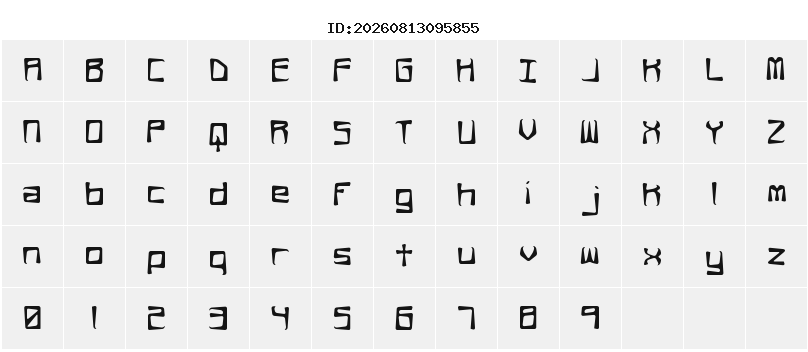
Rehearsal Offset BRK Preview
• Font Name: Rehearsal Offset BRK
• Full Font Name: Rehearsal Offset BRK
About Rehearsal Offset BRK.ttf
Rehearsal Offset BRK.ttf is a modern, elegant sans-serif font designed for ultimate readability and visual harmony. Perfect for branding, headlines, web design, and print materials.